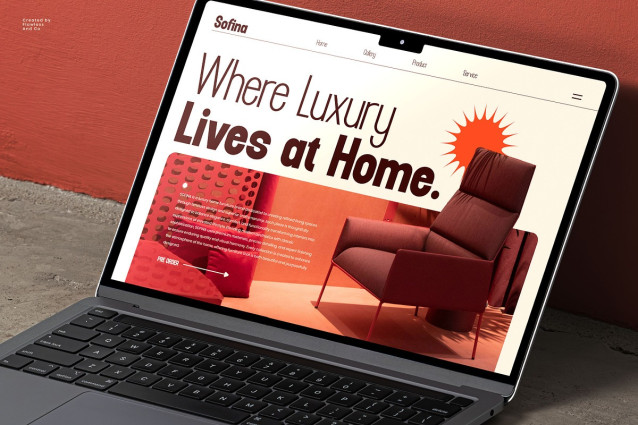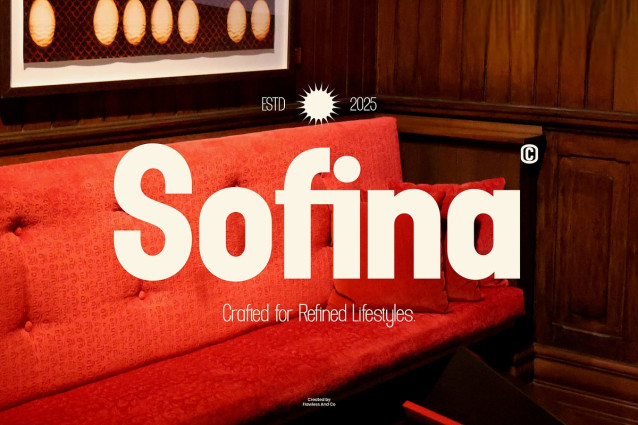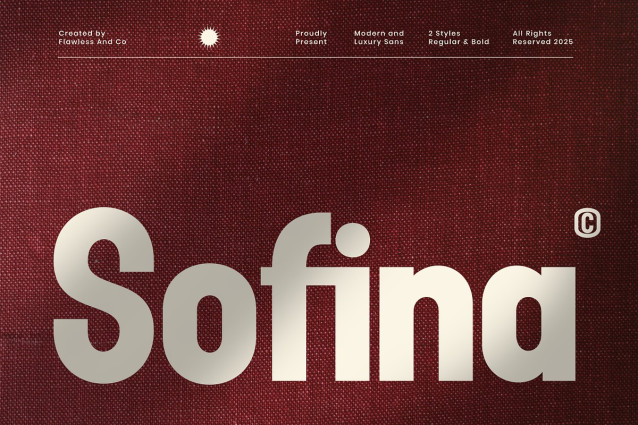
Sofina Font
Sofina Font is a modern sans serif font designed with clean geometry and refined simplicity. Featuring smooth curves, balanced proportions, and a contemporary aesthetic, Sofina delivers a professional and luxurious feel that works beautifully across both digital and print designs. With its minimal yet elegant character, Sofina is perfect for creating strong visual statements without sacrificing clarity.